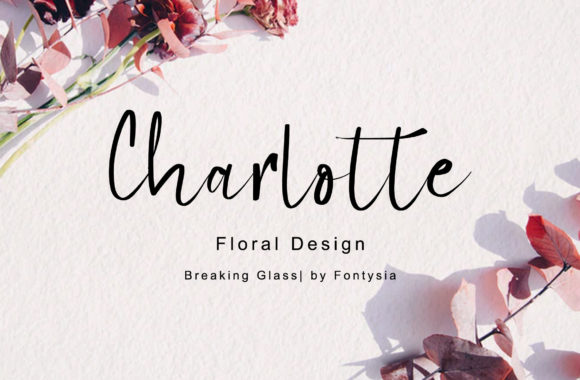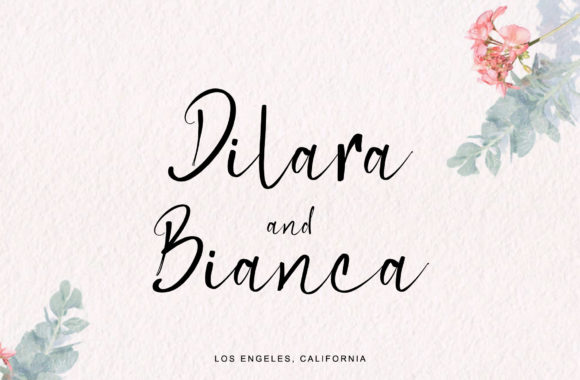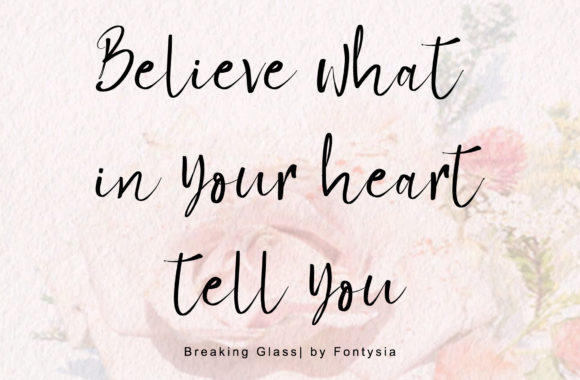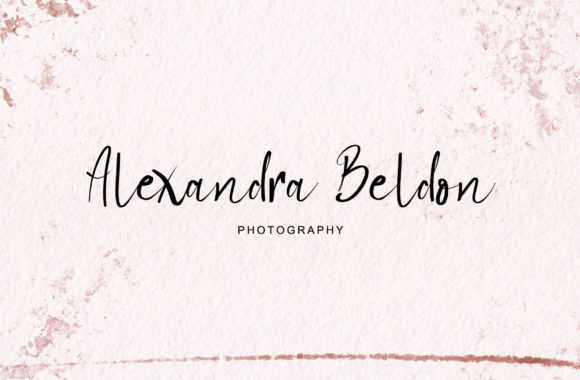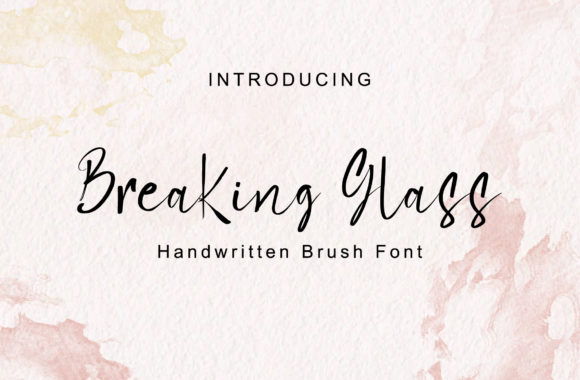
The Elusive Perfect Font: My Encounter with Breaking Glass
I still remember the countless hours I spent searching for the perfect font for a wedding invitation project. The client wanted something elegant, yet modern; something that would make their special day stand out. I scrolled through page after page of Google results, tried out font after font, but nothing seemed quite right. That was until I stumbled upon Breaking Glass – a thin lettered and graceful script font that stole my heart.
First Impressions: A Love Letter to Breaking Glass
As soon as I laid eyes on Breaking Glass, I knew I had found the one. Its ravishing style and effortless elegance had me hooked. I couldn’t wait to dive in and explore its features. Here’s what I love about Breaking Glass:
- ✨ Thin and graceful lines: Perfect for creating sophisticated wedding invitations, beautiful stationery art, and eye-catching social media posts.
- ✅ Elegant and modern feel: Great for designs that require a touch of luxury and refinement.
- 💫 Highly versatile: Works well for a variety of design projects, from digital to print.
A Few Quirks to Keep in Mind
While Breaking Glass is an amazing font, it’s not without its limitations. Here are a few things to keep in mind:
- ⚠️ Limited use in small sizes: Due to its thin lines, Breaking Glass may not be the best choice for body text or small font sizes.
- 🤔 Some letters may require manual kerning: As with any script font, some letters may need a little extra attention to get the spacing just right.
- Experiment with OpenType features like ligatures and stylistic alternates to add some extra flair to your design.
The Story Behind Breaking Glass
While I couldn’t find any information on the exact design story behind Breaking Glass, it’s clear that this font was crafted with love and attention to detail. Its elegant lines and refined feel make it perfect for designs that require a touch of sophistication.
| What is the best use for Breaking Glass font? | Breaking Glass is perfect for designs that require a touch of elegance and sophistication, such as wedding invitations, stationery art, and social media posts. |